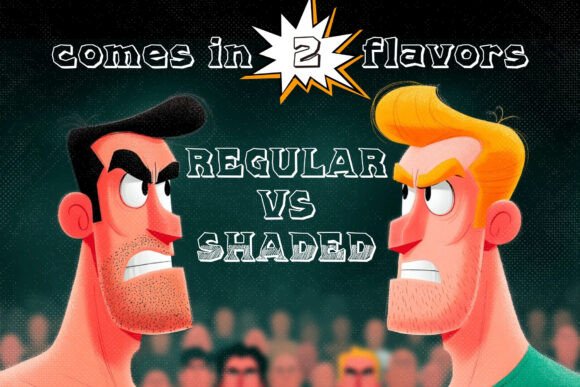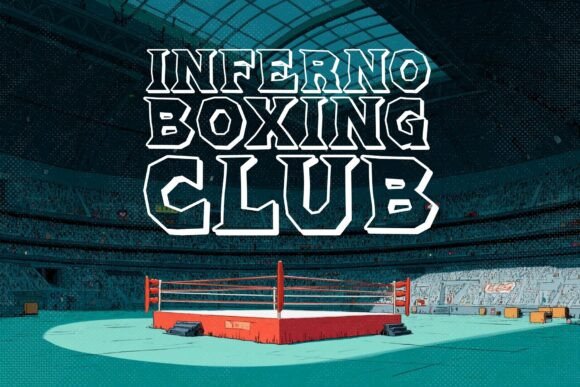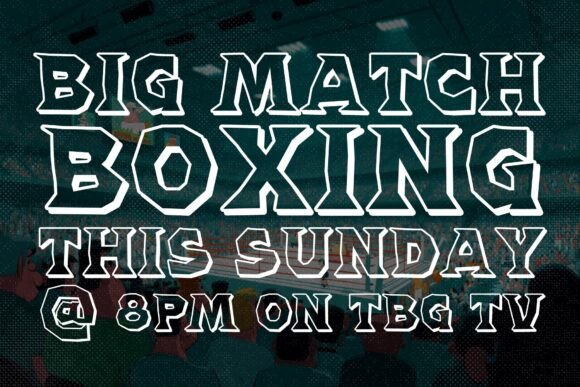
Introduction to Nutty Knockout Font
Imagine you’re brainstorming ideas for a new campaign, and suddenly, a spark of inspiration hits you – a bold, eye-catching design that screams to be noticed. That’s exactly what the Nutty Knockout Font is all about: unleashing your creativity and grabbing attention with its high-energy typeface inspired by the wild world of old-school comic books and Saturday matinees.
As designers, we’re always on the lookout for that perfect design resource to elevate our projects. The Nutty Knockout Font is a game-changer, offering two knockout styles: Regular and Shaded. With its transparent background and free download, you can experiment with this high-quality font on any creative project, from social media graphics to posters and flyers.
Key Features of Nutty Knockout Font
- High-quality font with a transparent background, ideal for creative projects that require a unique and eye-catching design element.
- Unique characteristic: the Nutty Knockout Font features a bold, playful style with a knockout effect, adding a creative twist to any design project.
Honest Review: Nutty Knockout Font
As a designer, I’m always on the lookout for unique and high-quality design resources to elevate my creative projects. The Nutty Knockout Font caught my eye with its quirky and playful vibe, making it perfect for fun and lighthearted designs.
I downloaded the Nutty Knockout Font for free and was impressed by its clarity and legibility, even on a transparent background. The font’s irregular shapes and lines add a touch of whimsy to any design, making it a great addition to any creative project.
- ✨ Unique and playful design aesthetic
- ✨ High-quality and clear font rendering
- ⚠️ Limited language support (only Latin-based alphabets)
- ⚠️ Not suitable for formal or professional designs
Overall, I’m impressed with the Nutty Knockout Font and would recommend it for designers looking for a fun and creative design resource. While it may have some limitations, its unique design aesthetic and high-quality rendering make it a valuable addition to any designer’s toolkit.
The Nutty Knockout Font is perfect for use in social media graphics, blog posts, marketing materials, and other creative projects. Use the font to add a touch of whimsy and personality to your designs. The font’s transparent background makes it easy to use in a variety of design contexts.